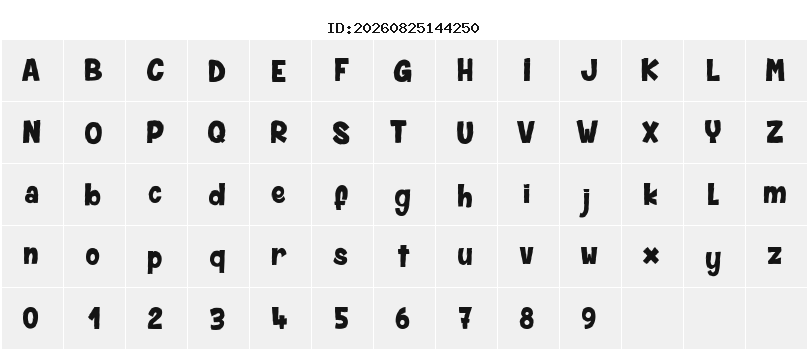
• Font Name: SPIDER MONKEY
• Font ID: dcoxyMedinaGregory: SPIDER MONKEY: 2015
• Full Font Name: SPIDER MONKEY
• PostScript Name: SPIDERMONKEY
• Character Count: 167
• Designer: dcoxy Medina Gregory
• Manufacturer: dcoxy Medina Gregory
About SPIDER MONKEY.ttf
SPIDER MONKEY.ttf is a modern, elegant sans-serif font designed for ultimate readability and visual harmony. Perfect for branding, headlines, web design, and print materials.